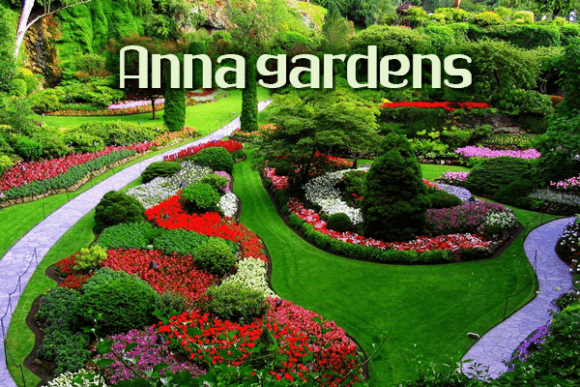
Introducing Drabe Font: The Perfect Blend of Elegance and Quirkiness
In the world of typography, fonts play a crucial role in conveying the tone and personality of a design. A well-crafted font can elevate a composition from ordinary to extraordinary. Meet Drabe, a remarkable sans serif font designed by the talented Alberto Villanueva. This exceptional font strikes a balance between elegance and quirkiness, making it perfect for informal and casual contexts.
The Creative Mind Behind Drabe
Alberto Villanueva, a renowned designer, is the mastermind behind Drabe. With a keen eye for detail and a passion for innovative design, Villanueva has created a font that is both visually striking and functional. His experience in typography and design has enabled him to craft a font that is not only aesthetically pleasing but also versatile.
The Distinctive Style of Drabe
Drabe’s distinctive style is characterized by its peculiar design, which sets it apart from other fonts. Its sans serif structure gives it a clean and modern look, while its quirky elements add a touch of playfulness. This unique blend of elegance and quirkiness makes Drabe perfect for designers and crafters looking to add a personal touch to their creations.
Perfect for Informal and Casual Contexts
Drabe is specifically designed for informal and casual contexts, making it ideal for a wide range of applications. Whether you’re working on a branding project, creating a social media graphic, or designing a website, Drabe is the perfect choice. Its friendly and approachable tone will help you connect with your audience and convey your message in a fun and engaging way.
Bringing Unique Energy to Your Compositions
When you use Drabe in your designs, you can expect to bring a unique energy and dynamic immersion to your compositions. The font’s distinctive style and quirky elements will add a touch of personality to your work, making it stand out from the crowd. Whether you’re a designer, crafter, or artist, Drabe is the perfect tool to help you express your creativity and showcase your individuality.
Key Features of Drabe Font
- Unique Design: Drabe’s peculiar design sets it apart from other fonts, making it perfect for designers and crafters looking to add a personal touch to their creations.
- Elegant and Quirky: Drabe strikes a balance between elegance and quirkiness, making it perfect for informal and casual contexts.
- Sans Serif Structure: Drabe’s sans serif structure gives it a clean and modern look, making it perfect for a wide range of applications.
- Versatile: Drabe is a versatile font that can be used in various contexts, from branding and advertising to web design and social media.
In conclusion, Drabe is an exceptional font that is sure to elevate your designs to the next level. With its unique blend of elegance and quirkiness, Drabe is perfect for informal and casual contexts. Trust in the creative mind of Alberto Villanueva and experience the unique energy and dynamic immersion that Drabe brings to any composition. Whether you’re a designer, crafter, or artist, Drabe is the perfect tool to help you express your creativity and showcase your individuality.